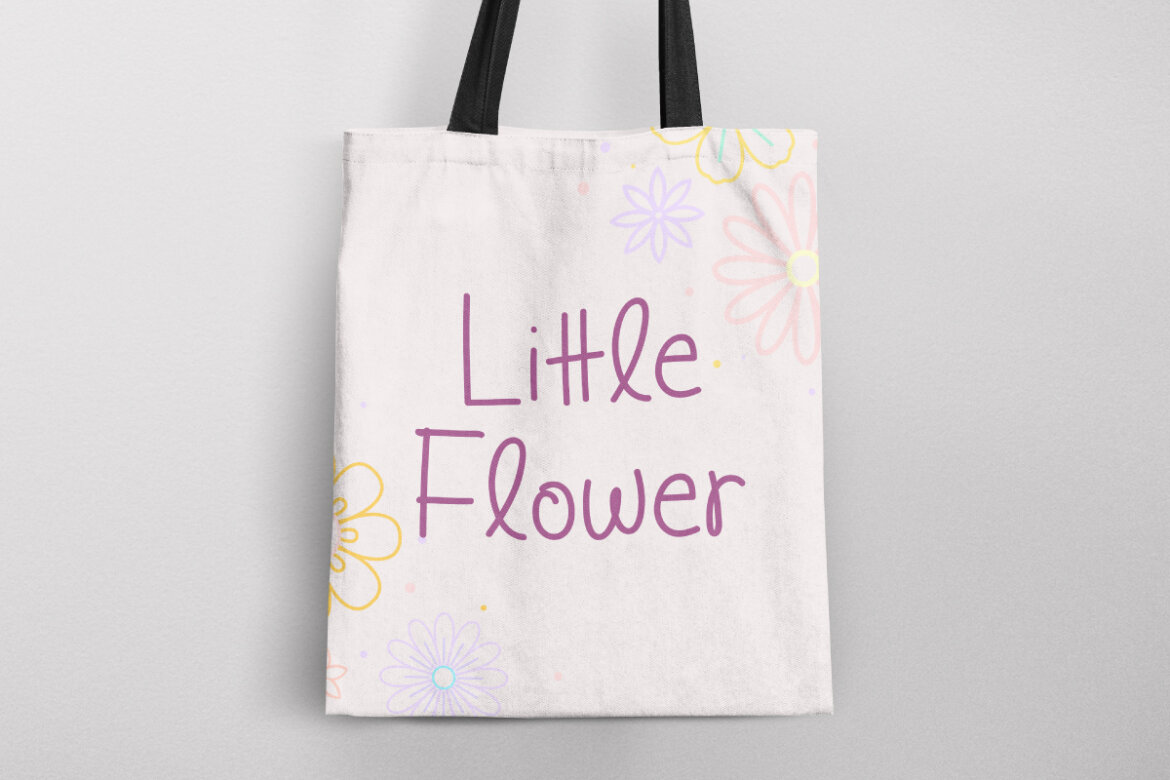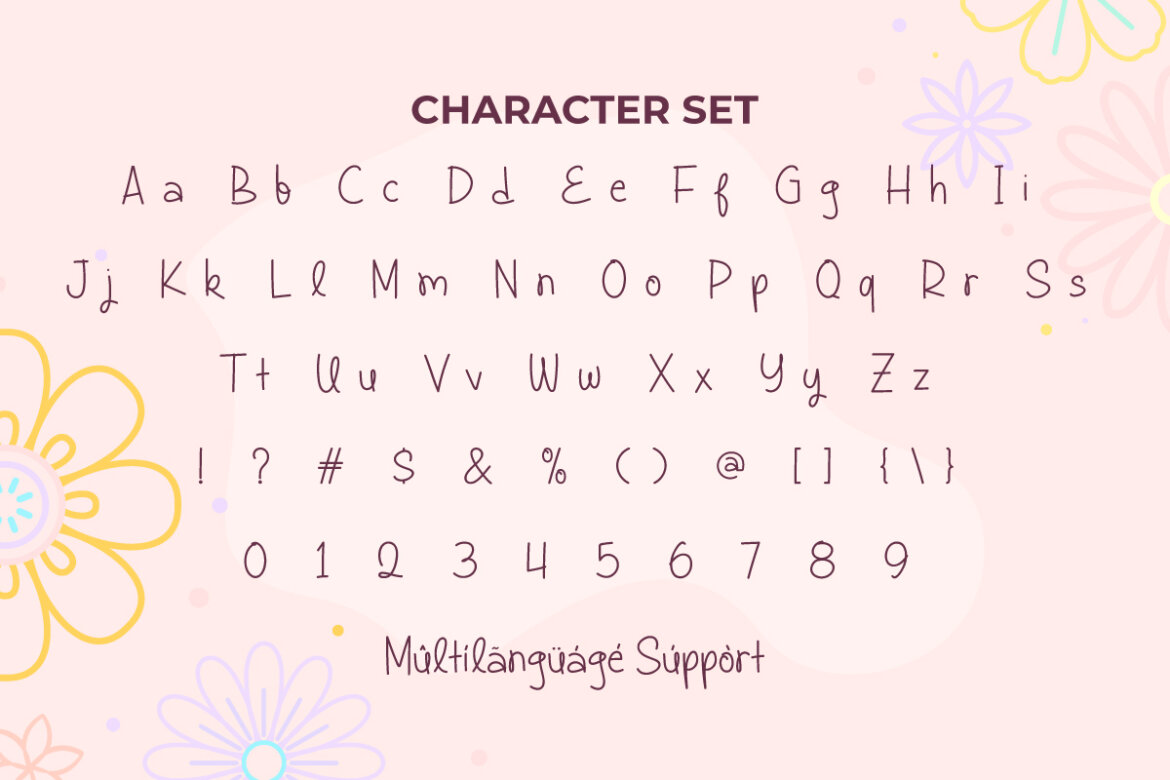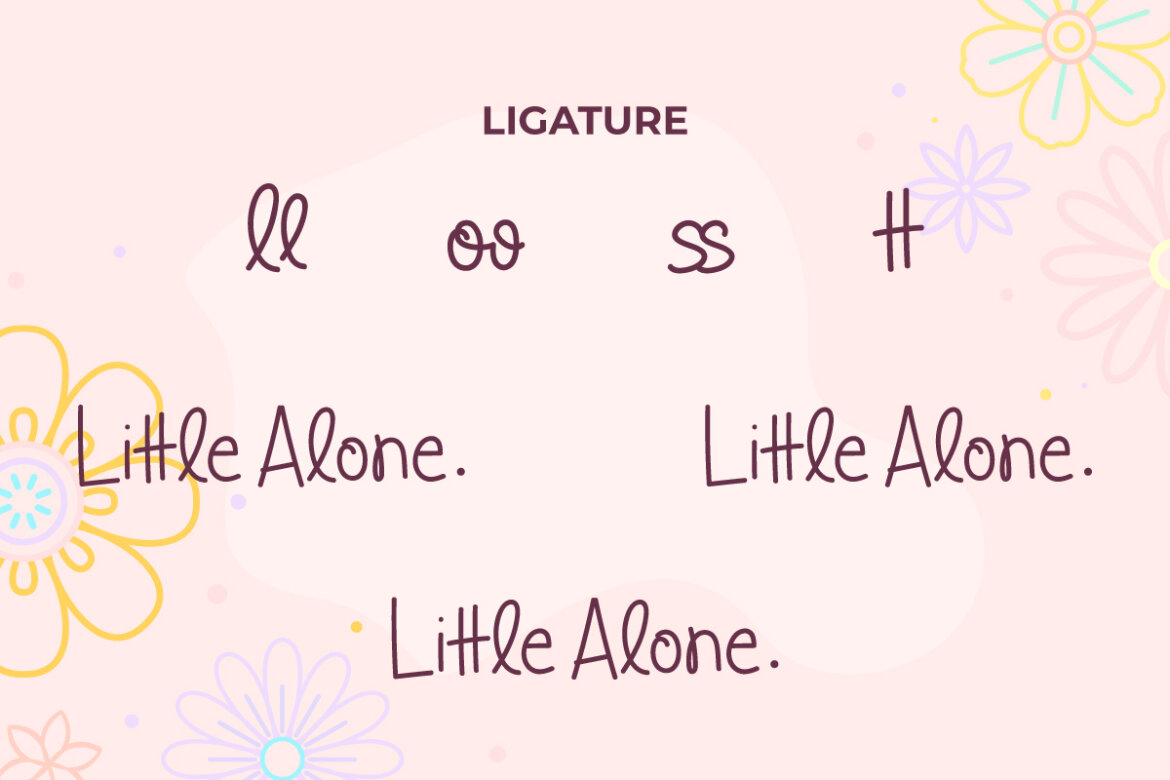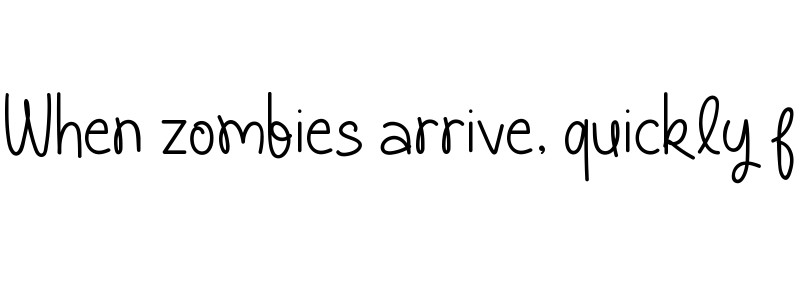
Little Alone FREE Font
Little Alone
Little Alone Font is a joyful modern display font that comes with fresh and cheerful letters brings a personal handcrafted touch. The letter’s minimalist, sleek and smooth shape makes it ideal for blogs, branding, brochure, cover, editorial design, flyer, greeting cards, header, headline, invitations, mockup, packaging, screen print, signs, stationery, template design, title, website, and any project that demands a sophisticated touch.
Little Alone Font will be perfect for creating a standout look. This will definitely add a personal touch that expresses your creative flair. With modern versatility suitable for whatever your business, such as accessories, bakery or pastries, cafe, candy shop, event organizer, fashion, florist, graphic design, handicraft, ice cream producer, movie, pet shop, photography, printing, publishing, and much more!
Little Alone Font comes with a complete set of Uppercase and Lowercase Basic Characters, Number, a large range of Punctuation, and Symbol. It also features cute Ligature characters to add artistic value to the font. It is supported with multilingual characters and ready to use both on Windows machine or Mac with simple installations. It’s tested to work well in the Adobe Apps (Illustrator, Adobe InDesign, Adobe Photoshop) CorelDraw, and others. PUA Encode Characters means you can access all the characters easily – Fully accessible without additional design software.